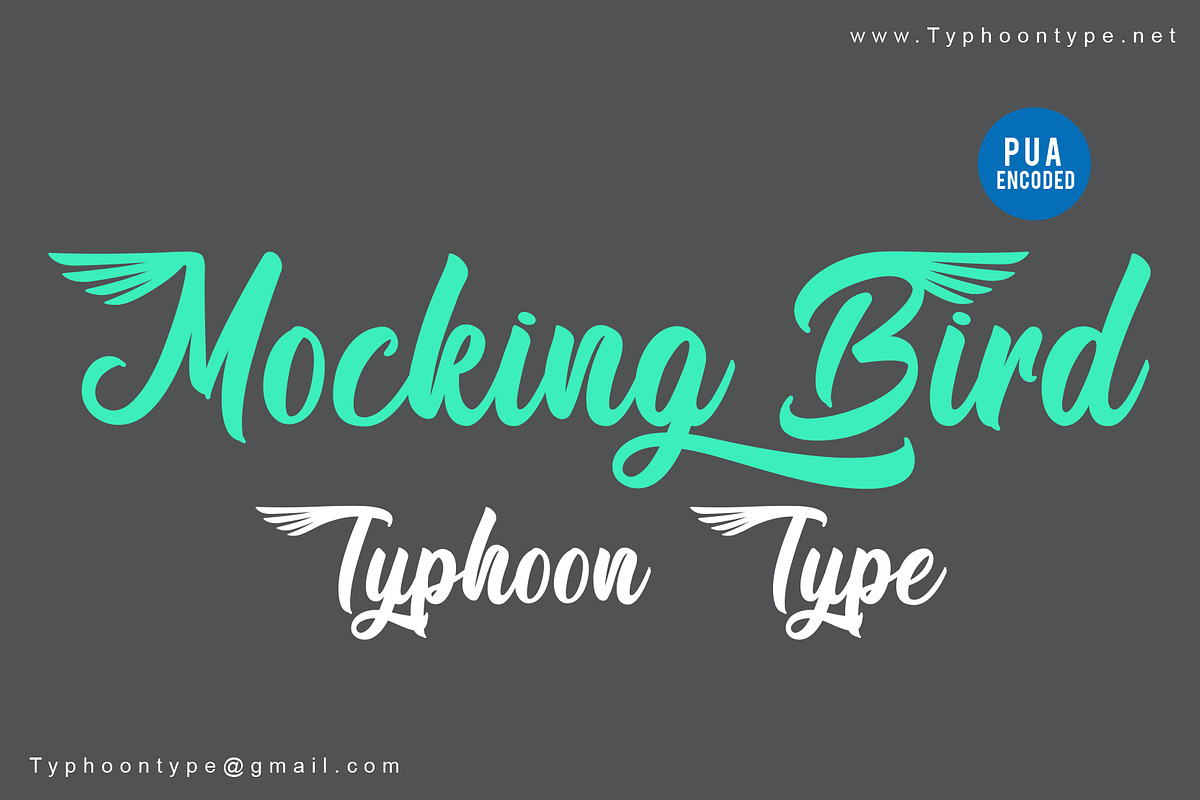
Mocking Bird font
Mocking Bird This Font perfect for logos, name tag, advertising, product packaging, clothing, social media & greeting cards.
Why Mocking Bird font is worth a look
Mocking Bird font by TyphoonStudio fits naturally into Branding, posters, packaging, typography.